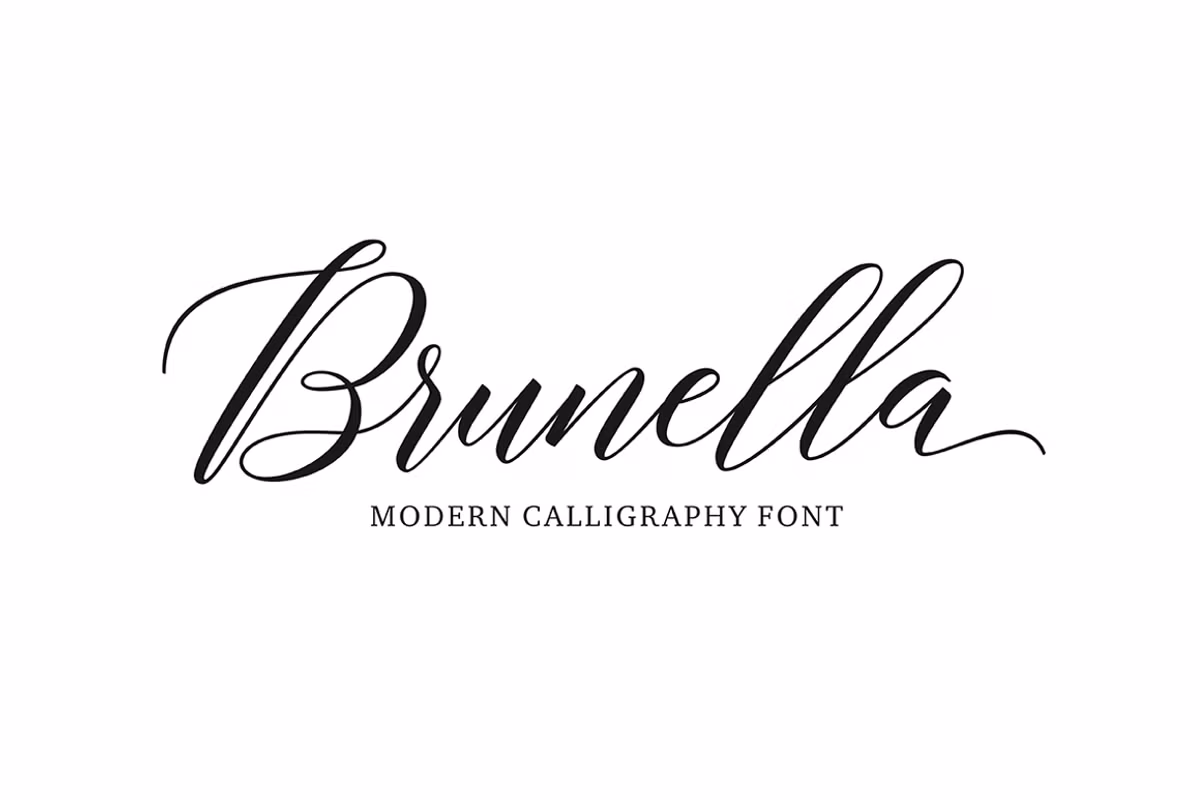
Brunella Script Free Download
Brunella Script Font Free Download is a stylish and romantic handwritten typeface that brings elegance and charm to every design. Please note: you must purchase this font for commercial use, but you can test it through a free download. With its flowing lines, graceful curves, and signature-style flair, Brunella is perfect for wedding invitations, branding, beauty products, greeting cards, and social media content that needs a soft, feminine touch.
Designed to feel both luxurious and personal, this script font adds a handcrafted sophistication to your typography. Whether you're designing a boutique logo or crafting heartfelt quote graphics, Brunella Script Font Free Download offers beauty and versatility in every letter. Fully compatible with Adobe Illustrator, Photoshop, Canva, and more, it's ready to bring elegance to your creative workflow. Download it today for personal use and elevate your designs with the timeless charm of Brunella.